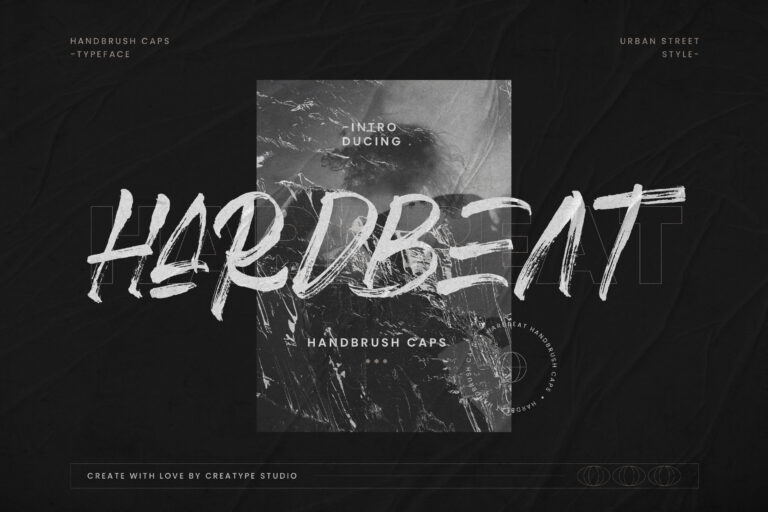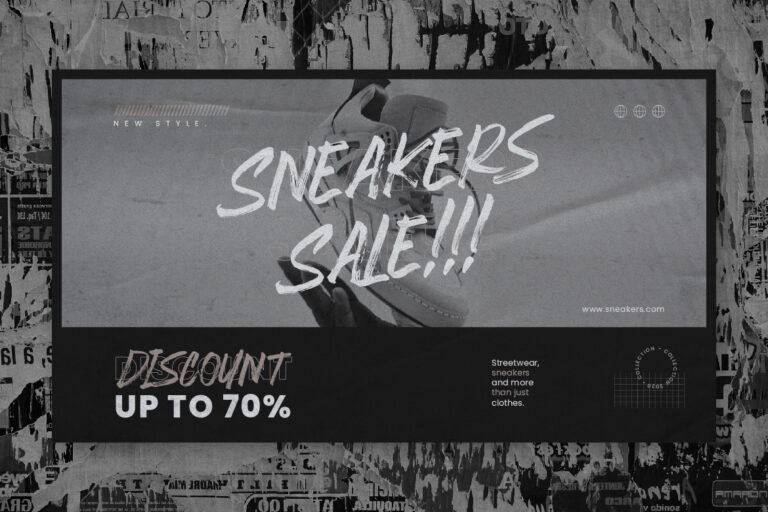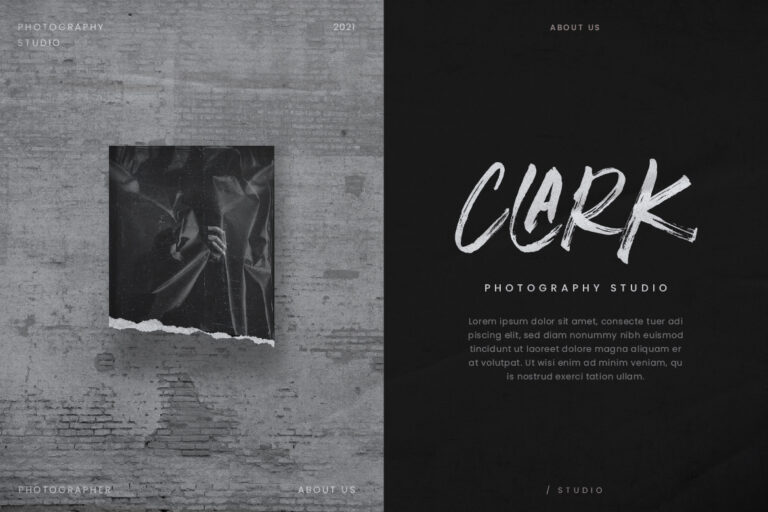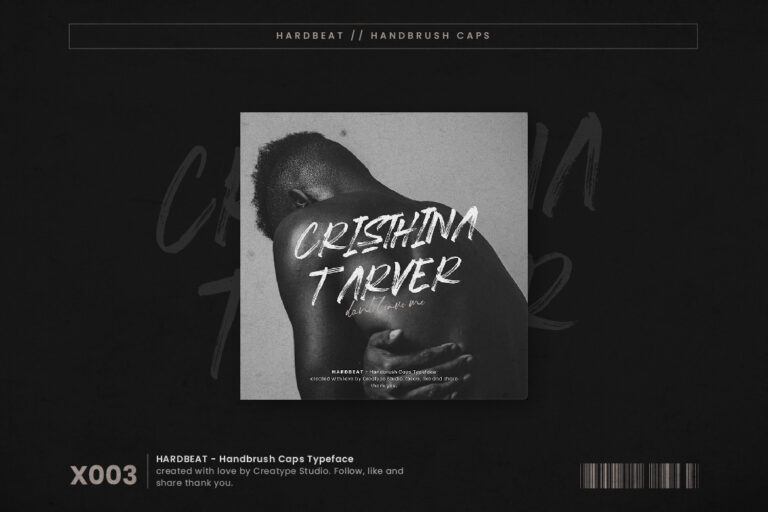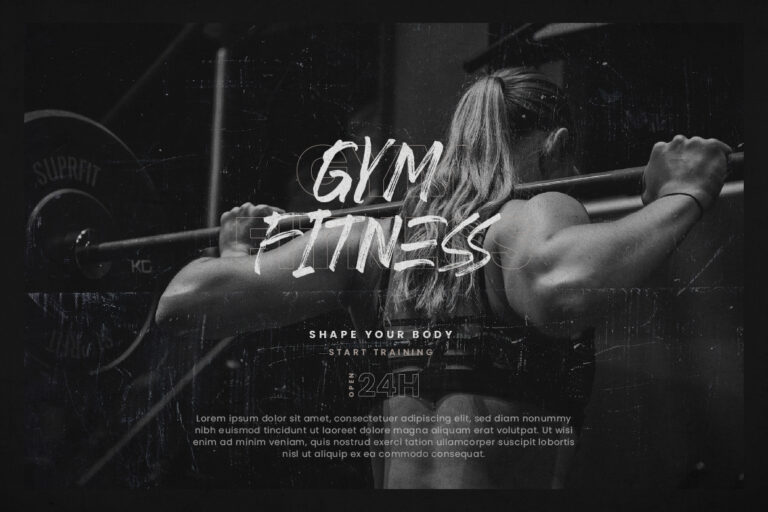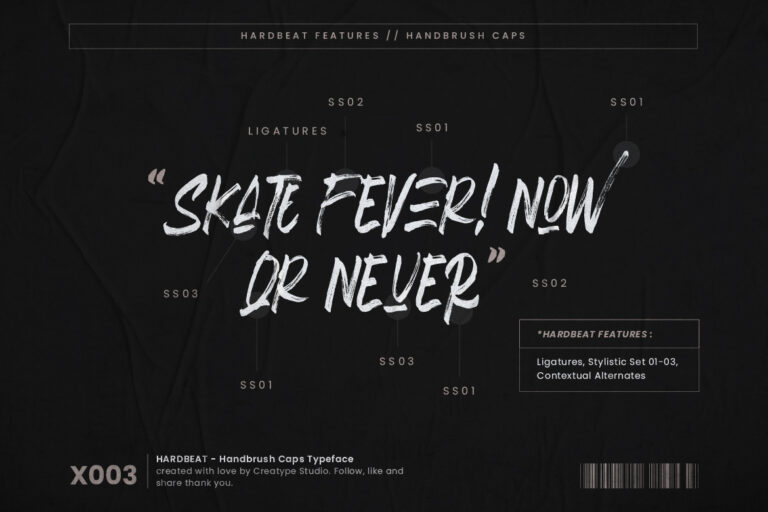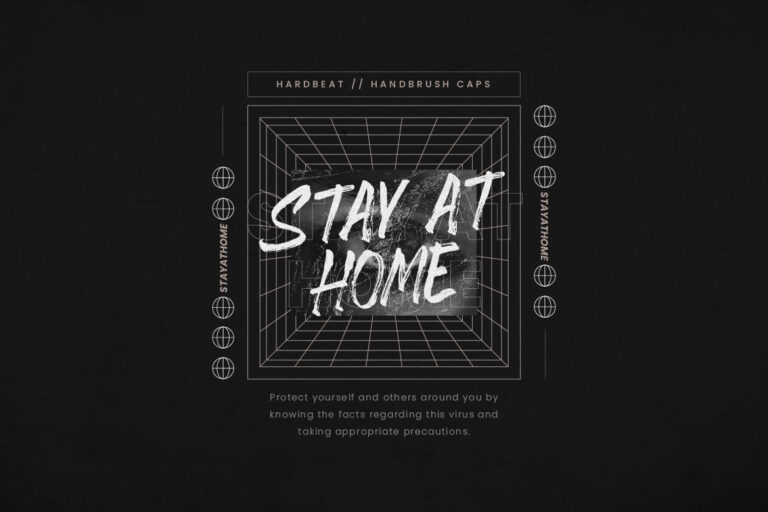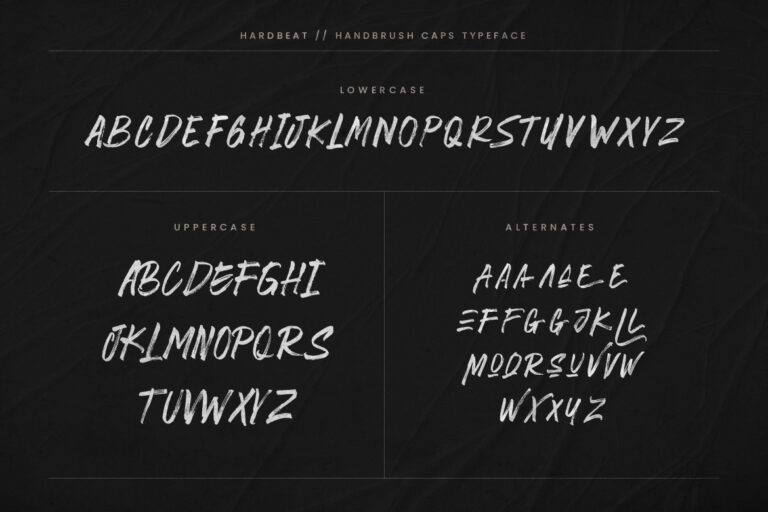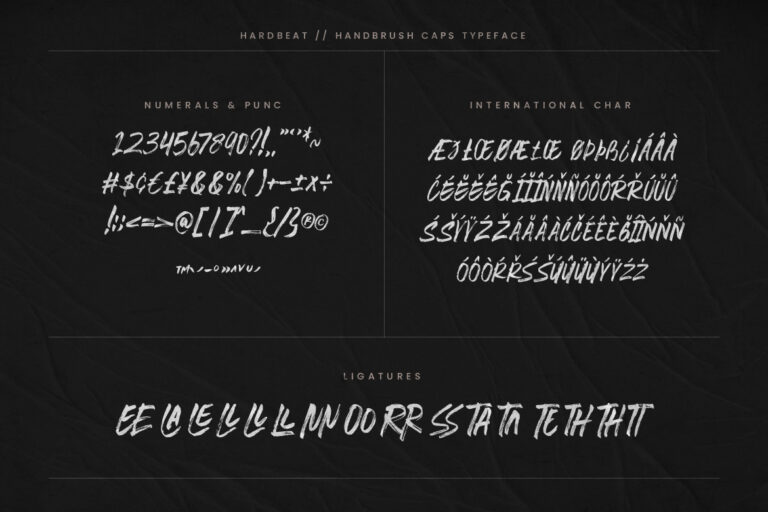
Hardbeat Handbrush Caps
Hardbeat Handbrush Caps is a font that conveys a message full of energy. Seen with very distinctive hand strokes, the texture of this font looks so detailed and bold.
Hardbeat is perfect for branding projects, logo, wedding designs, social media posts, advertisements, product packaging, product designs, label, photography, watermark, invitation, stationery and any projects that need handwriting taste.